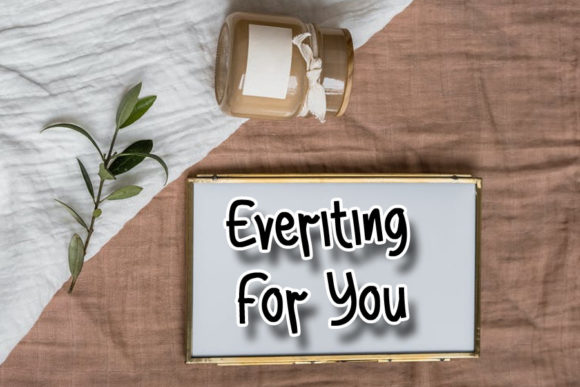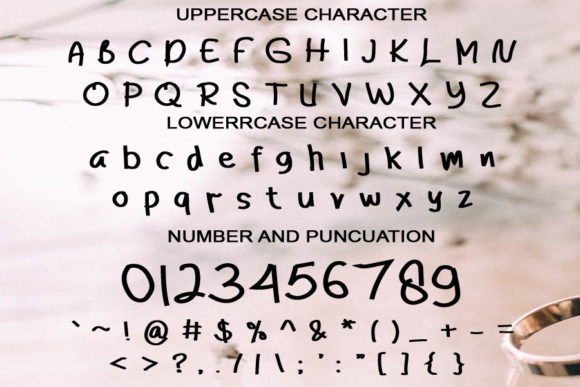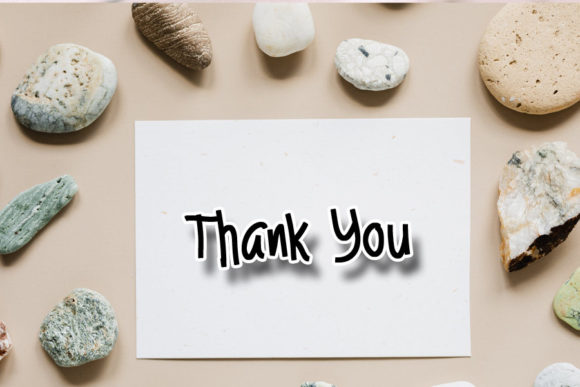
Introducing Belive Font: The Perfect Handwritten Font for Chalkboard Quotes and Teaching Materials
Are you a designer, teacher, or crafter looking for a font that can add a personal touch to your chalkboard quotes, teaching materials, or craft projects? Look no further than Belive Font! This adorable, simple lettered handwritten font is designed to bring an authentic, realistic feel to your designs. In this article, we’ll explore the features and benefits of Belive Font, and show you how it can elevate your creative projects.
What is Belive Font?
Belive Font is a carefully crafted, handwritten font that mimics the look of chalkboard writing. Its simple, yet charming lettering style makes it perfect for creating eye-catching chalkboard quotes, teaching materials, and other craft projects. The font’s authentic look and feel will transport your audience to a traditional classroom setting, making it ideal for educational materials, workshops, and more.
Key Features of Belive Font
- Cute and Simple Lettering Style: Belive Font boasts a delightful, easy-to-read lettering style that’s perfect for creating visually appealing chalkboard quotes and teaching materials.
- Authentic Look: The font’s design is inspired by traditional chalkboard writing, giving it a genuine, realistic feel that’s sure to captivate your audience.
- Handwritten Style: Belive Font’s handwritten style adds a personal touch to your designs, making them more relatable and engaging.
- Versatile: This font is suitable for a wide range of creative projects, from chalkboard quotes and teaching materials to craft projects, workshops, and more.
Benefits of Using Belive Font
Belive Font is a delightful, simple lettered handwritten font that’s perfect for creating chalkboard quotes, teaching materials, and craft projects. Its authentic look and feel will add a personal touch to your designs, making them more engaging and captivating. Whether you’re a teacher, designer, crafter, or workshop organizer, Belive Font is an excellent choice for your creative projects. So why wait? Download Belive Font today and start creating stunning designs that will leave a lasting impression!